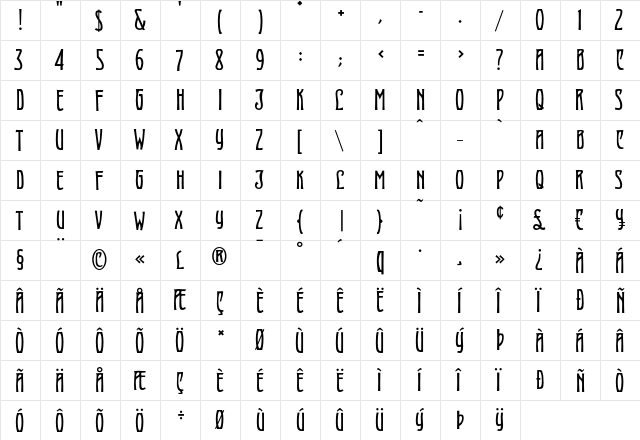
NouveauTitle Regular
Design Context for NouveauTitle Typeface
NouveauTitle is a composed and adaptable typeface that performs quietly and consistently across a wide range of design contexts.